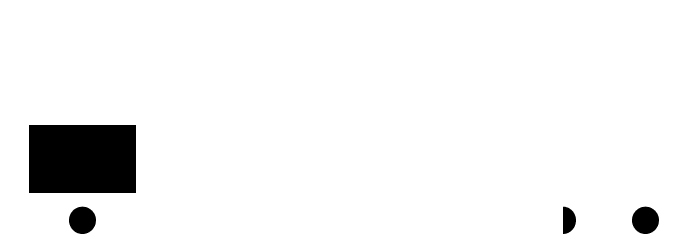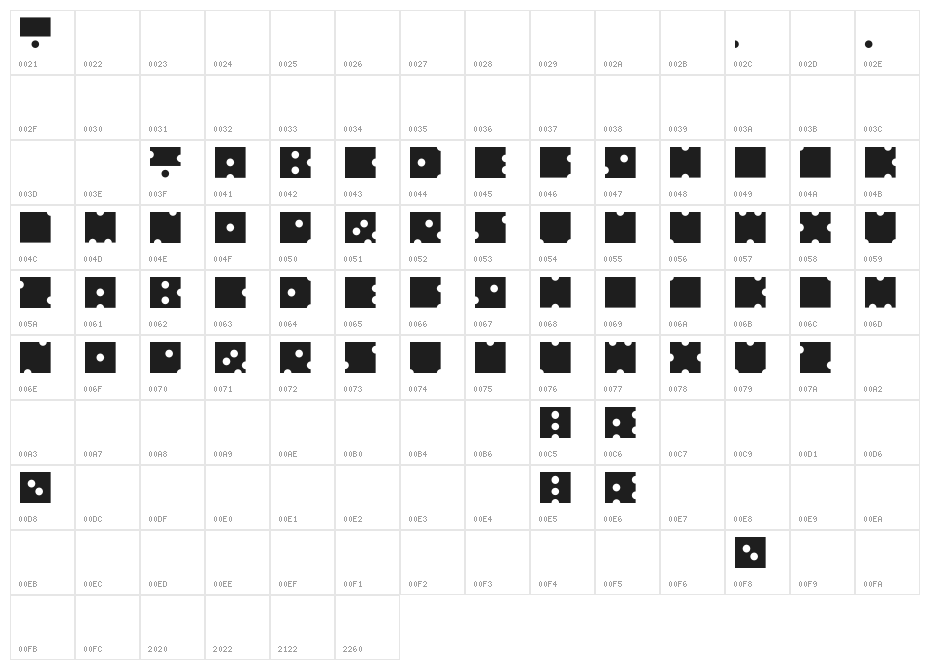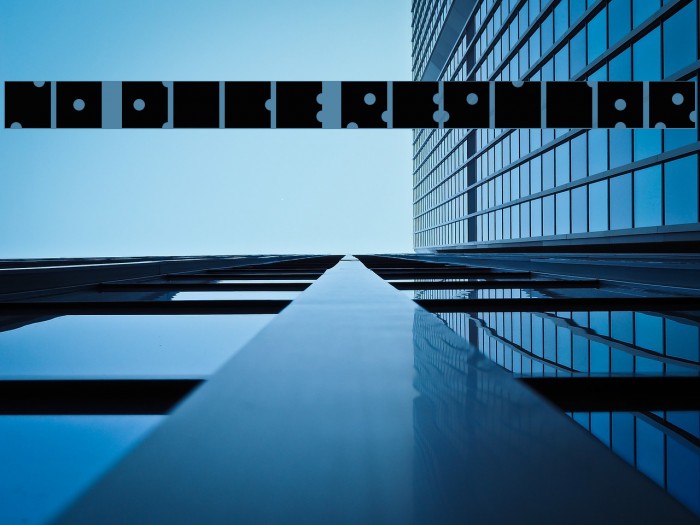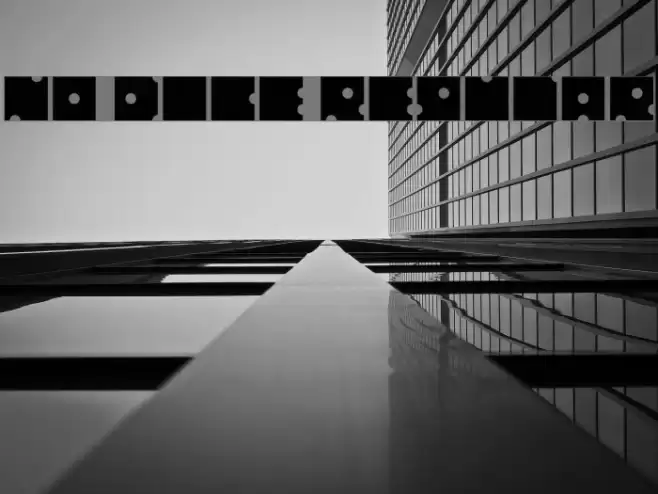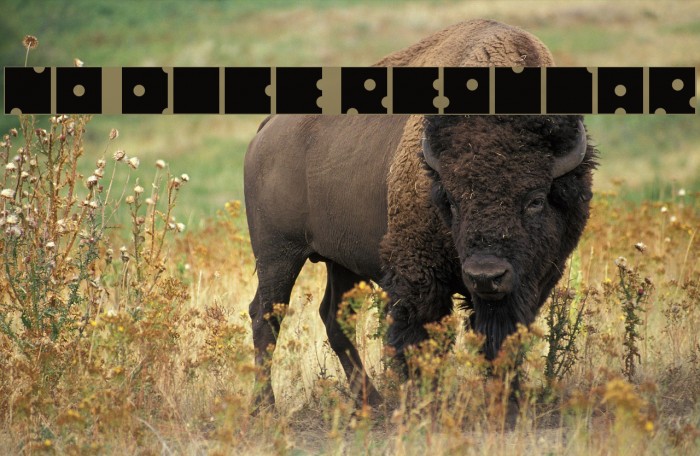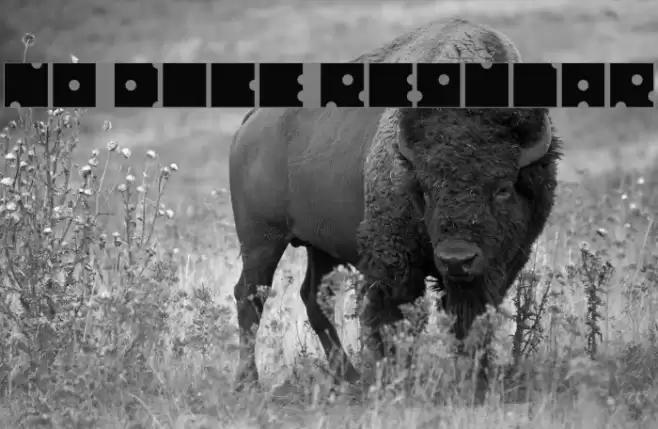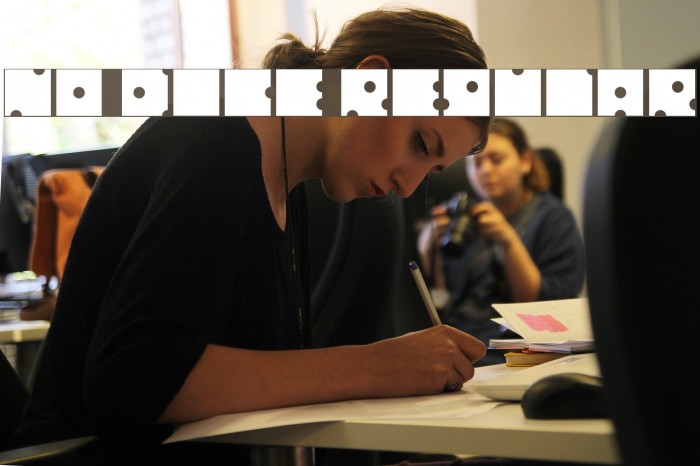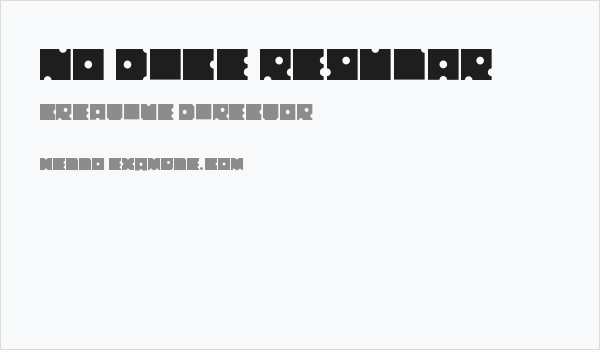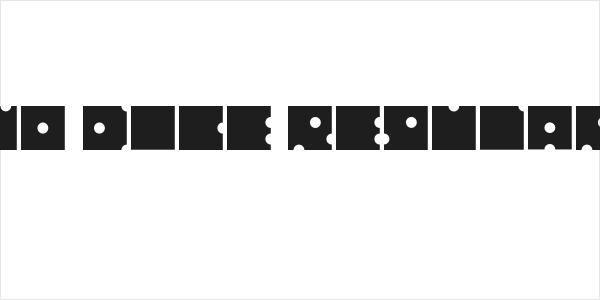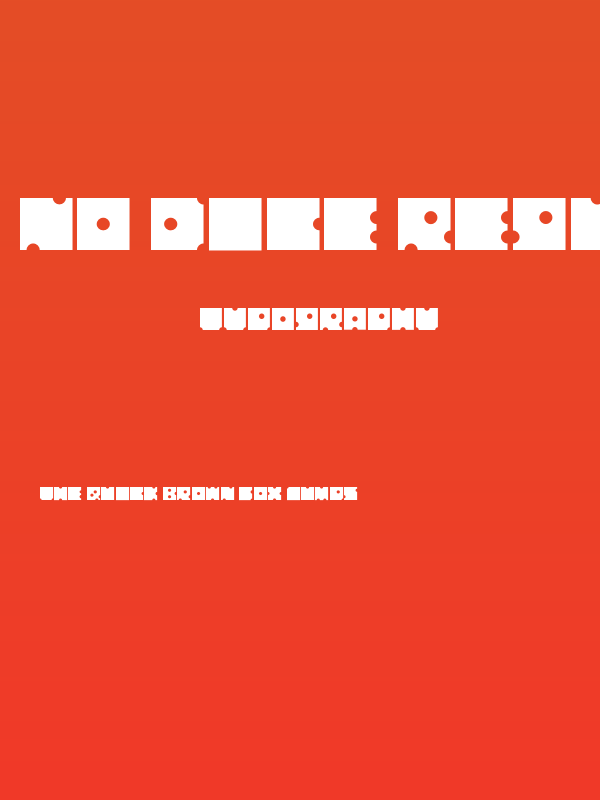
No Dice Regular Font
No Dice Regular Description
This font features a unique, playful design reminiscent of dice patterns. Each character is composed of solid, blocky shapes with circular cutouts, creating a bold and eye-catching appearance. The geometric style is consistent across uppercase, lowercase, and numeric characters, maintaining a uniform look. The special characters also follow this theme, adding to the cohesive design. The font's distinct style makes it suitable for creative and informal projects, where a touch of whimsy is desired.
| Overall Style | Playful, Geometric |
| Use Case | Logos, Posters, Creative Projects |
| Proposed Projects | Ideal for board game designs, playful branding, children's books, and creative posters. |